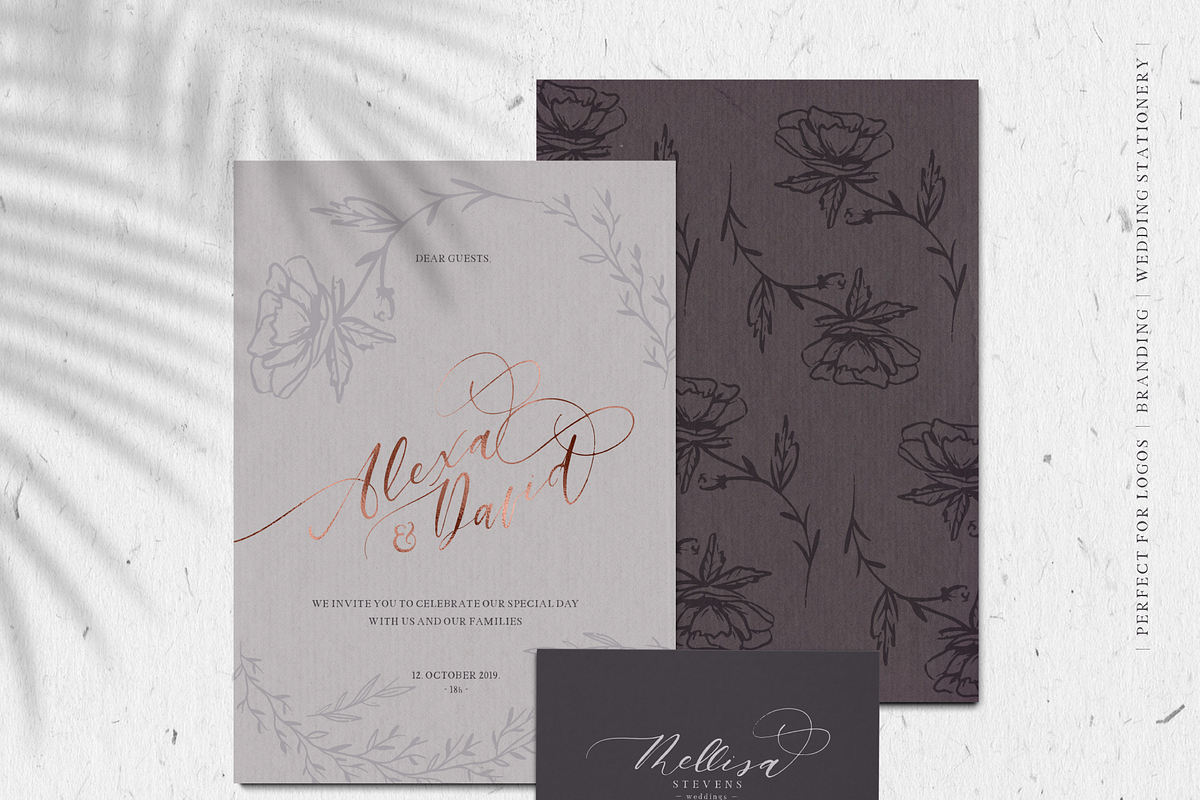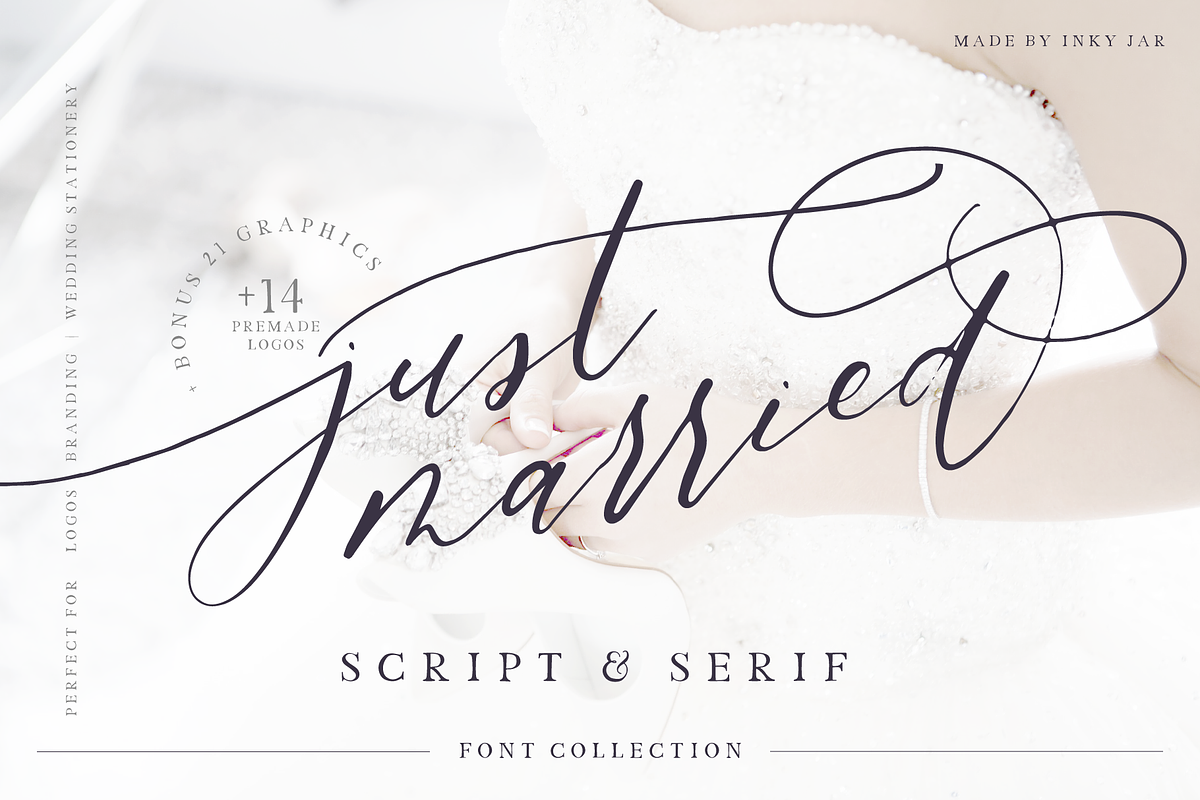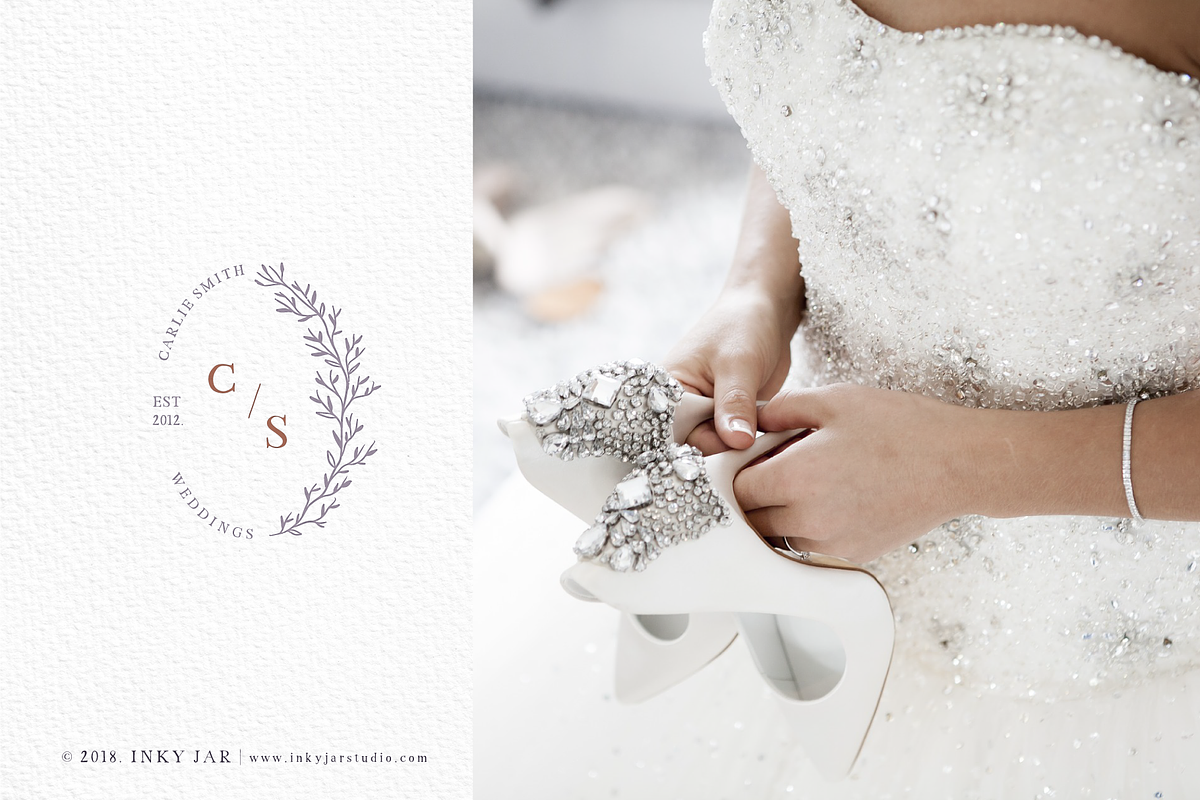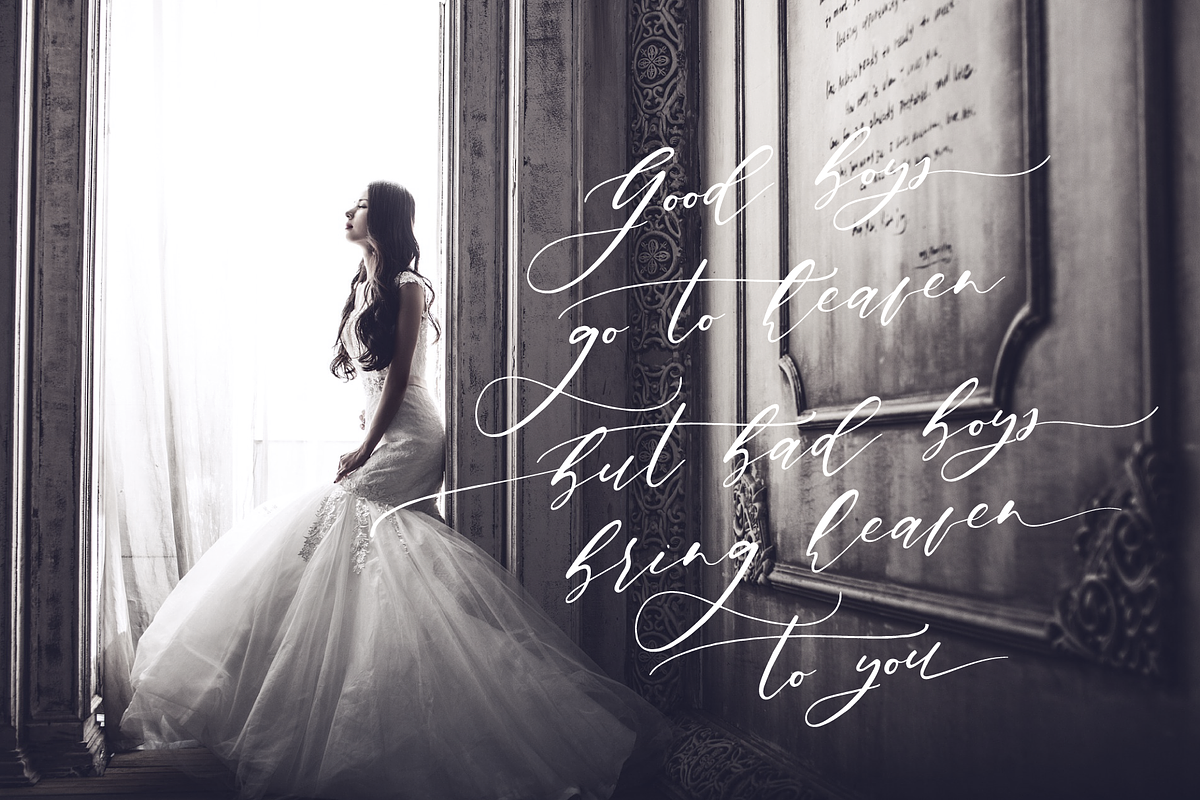
Just Married - Font Collection
Meet Just Married Font Collection - a delicate font duo inspired by love, weddings and romance!
This font duo is perfect for Logos & Branding, but also for Wedding Stationery and is full of extra goodies! Script font is packed with beginning swashes for uppercase and both beginning and ending swashes for lowercase letters, and Serif is elegant and sophisticated and goes wonderfully on its own as well as with the Script.